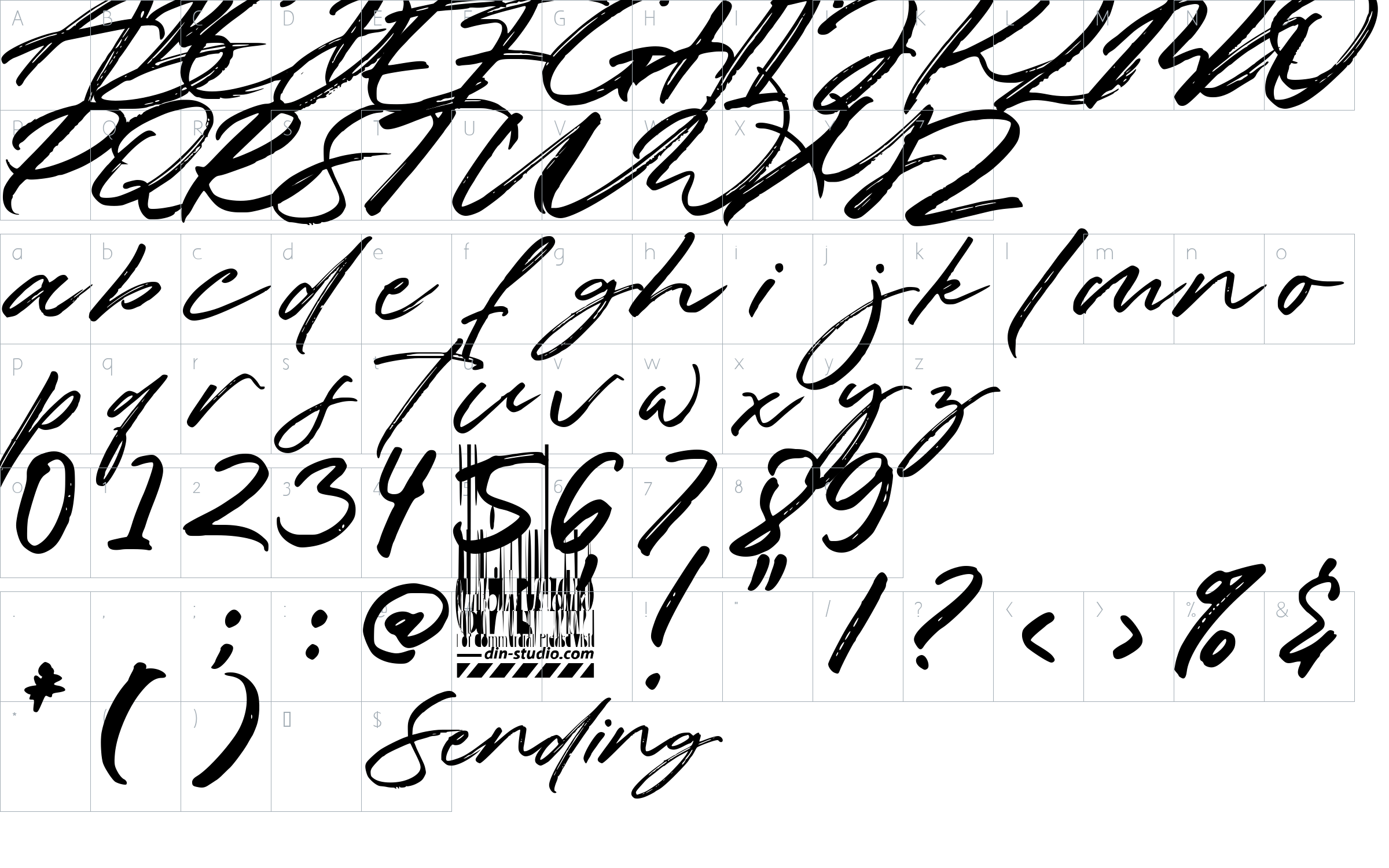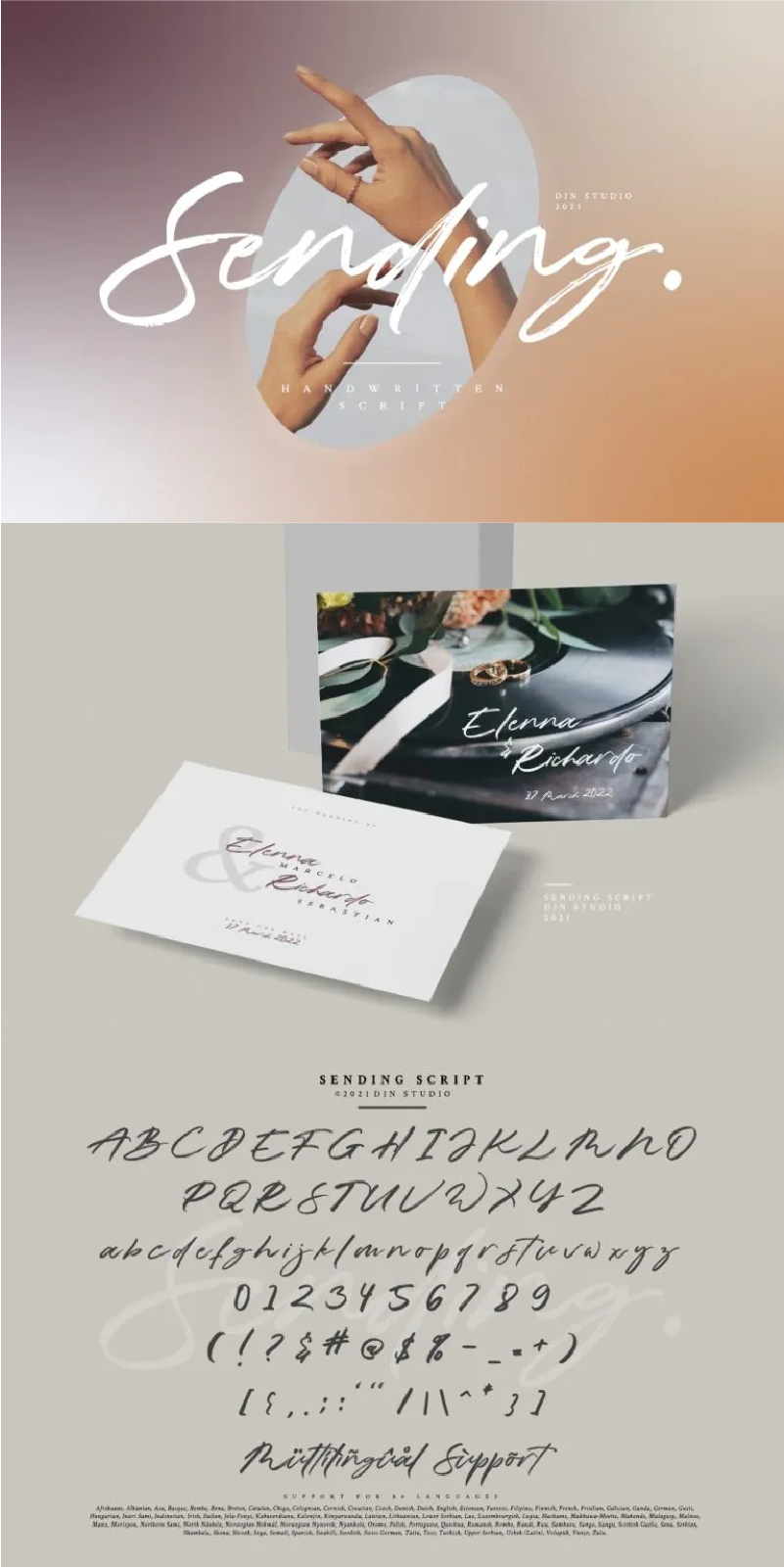
Sending Font
About Sending
Introducing Sending – A Handwritten Brush Font
This font can bring your projector branding to another level. It encapsulates the essence of simplicity but elegance. With elegance and passion edged into every curve and twist of this brush font – you’ll be sure to boost your sales and make the best impressions. Use Sending for headings, logos, business cards, printed quotes, invitations of all sorts, cards, packaging, and your website or social media branding.
Sending includes Multilingual Options to make your branding globally acceptable. See the previews above to get some inspiration on how you can use them.
- Beautiful Ligatures
- Numerals and Punctuation